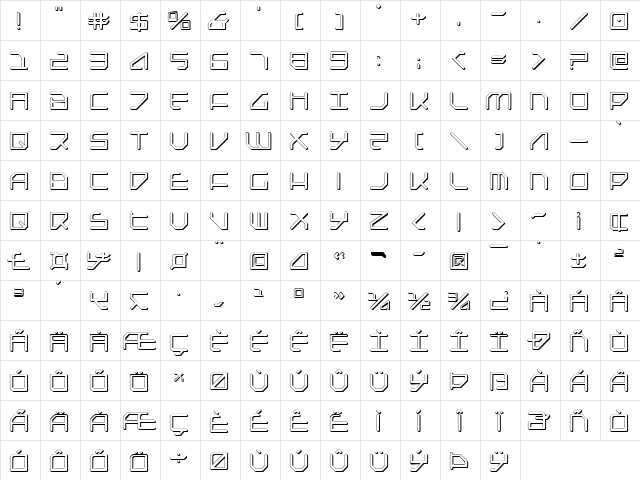
Federapolis Shadow Regular
Design Context for Federapolis Shadow Typeface
Federapolis Shadow is built around its visual character rather than neutral utility — its distinctive forms are designed to make an impression at display sizes.
Font Pairing: Pair with a clean neutral sans-serif for body copy to let Federapolis Shadow's character lead without overwhelming the composition.
Pro Tip: Treat Federapolis Shadow as the centrepiece of your typographic hierarchy. One strong heading set in a decorative face can carry an entire layout.